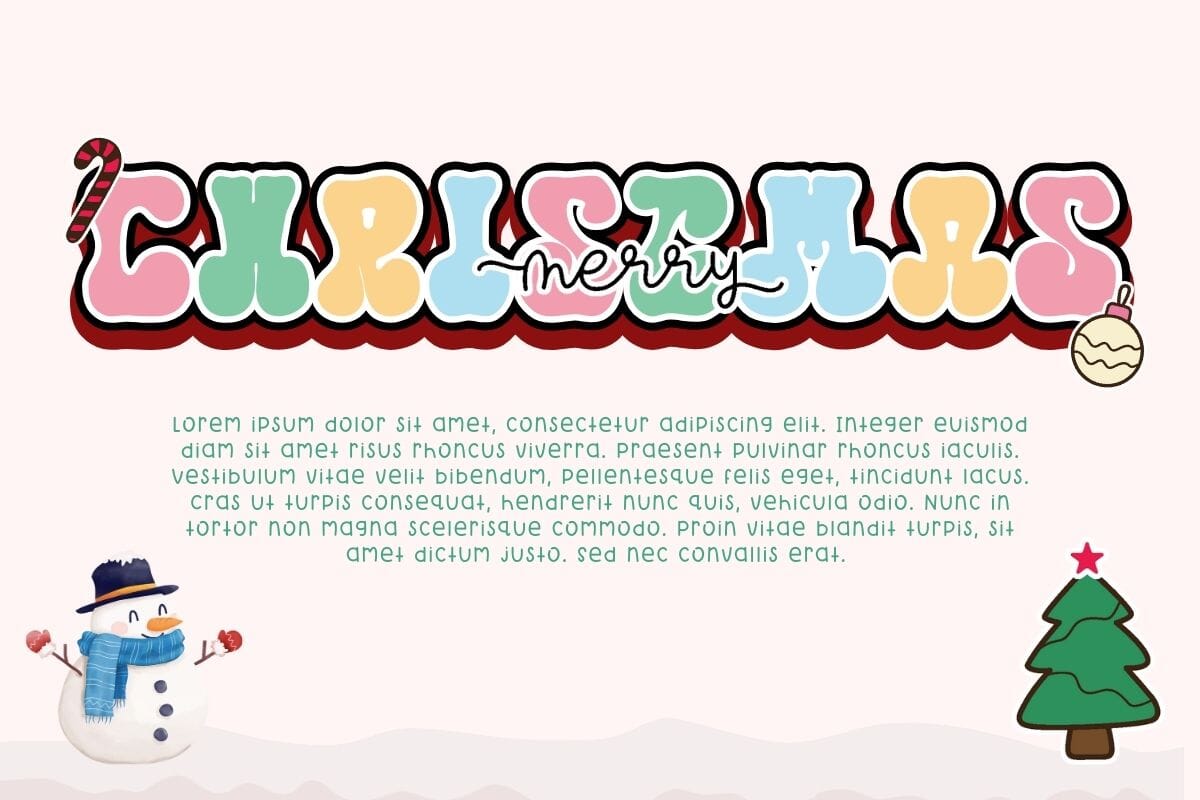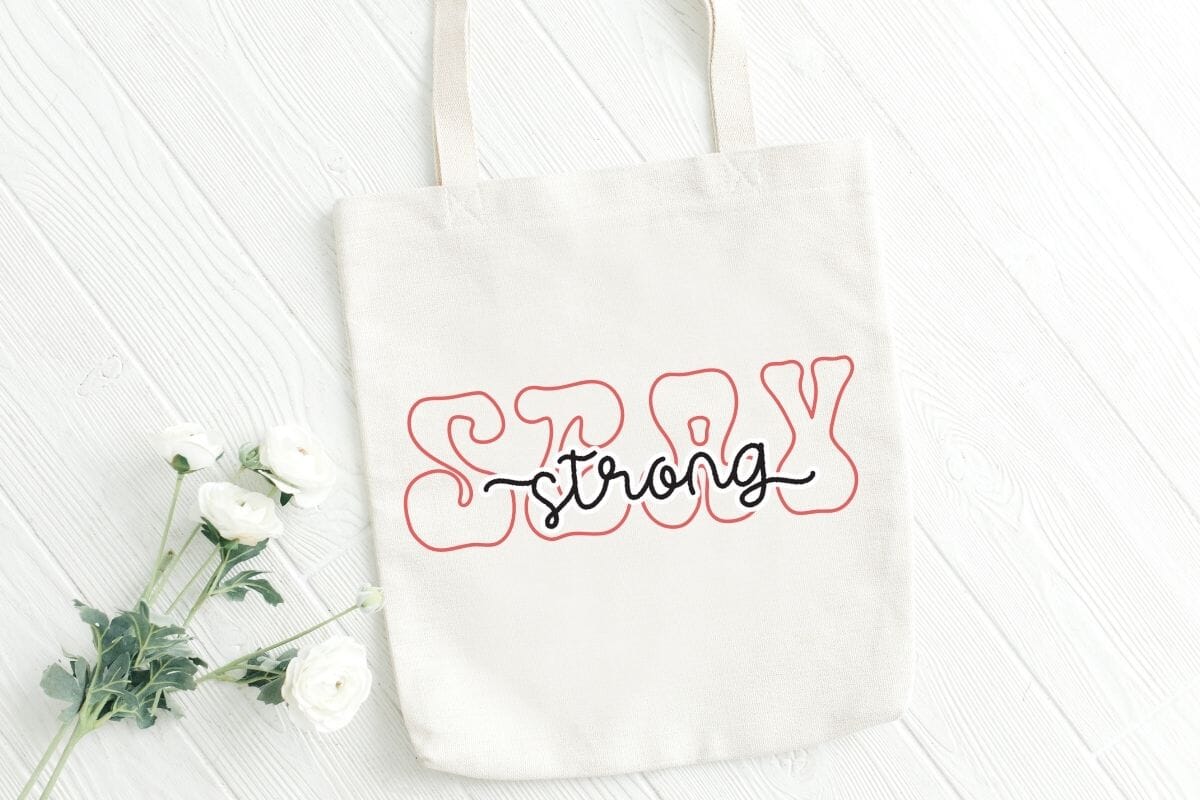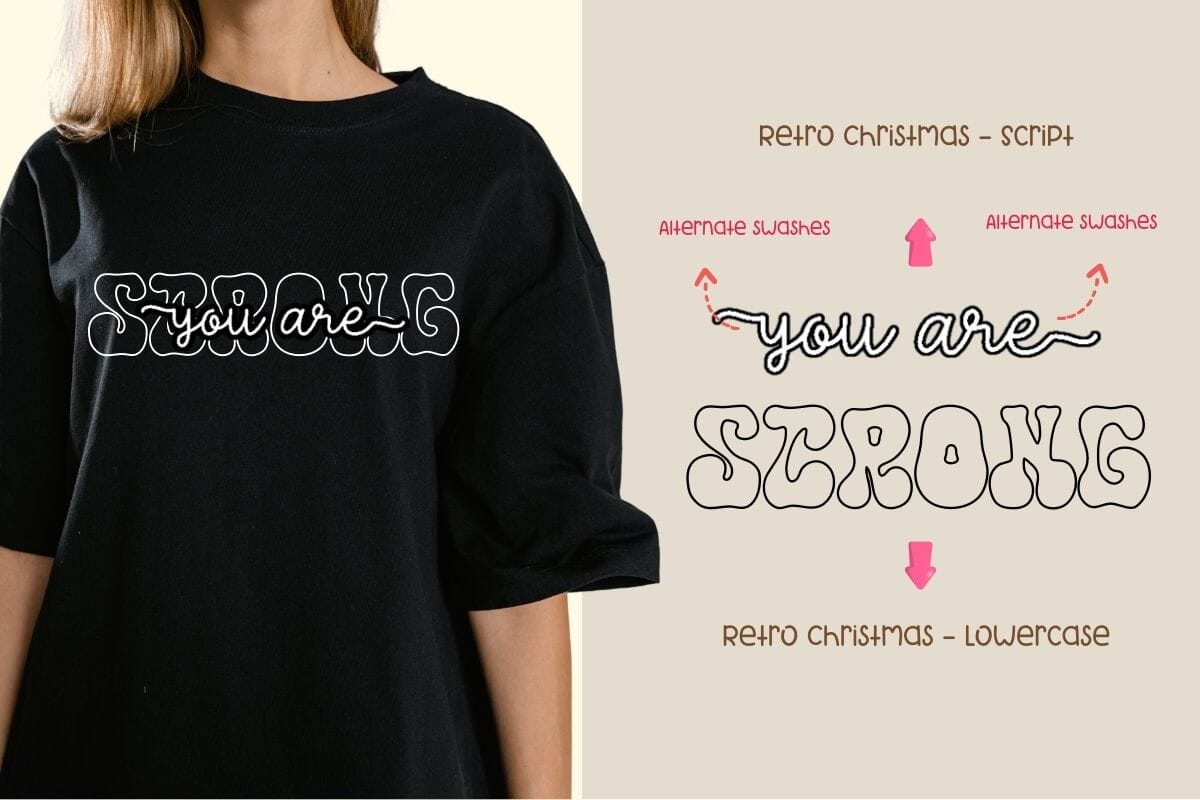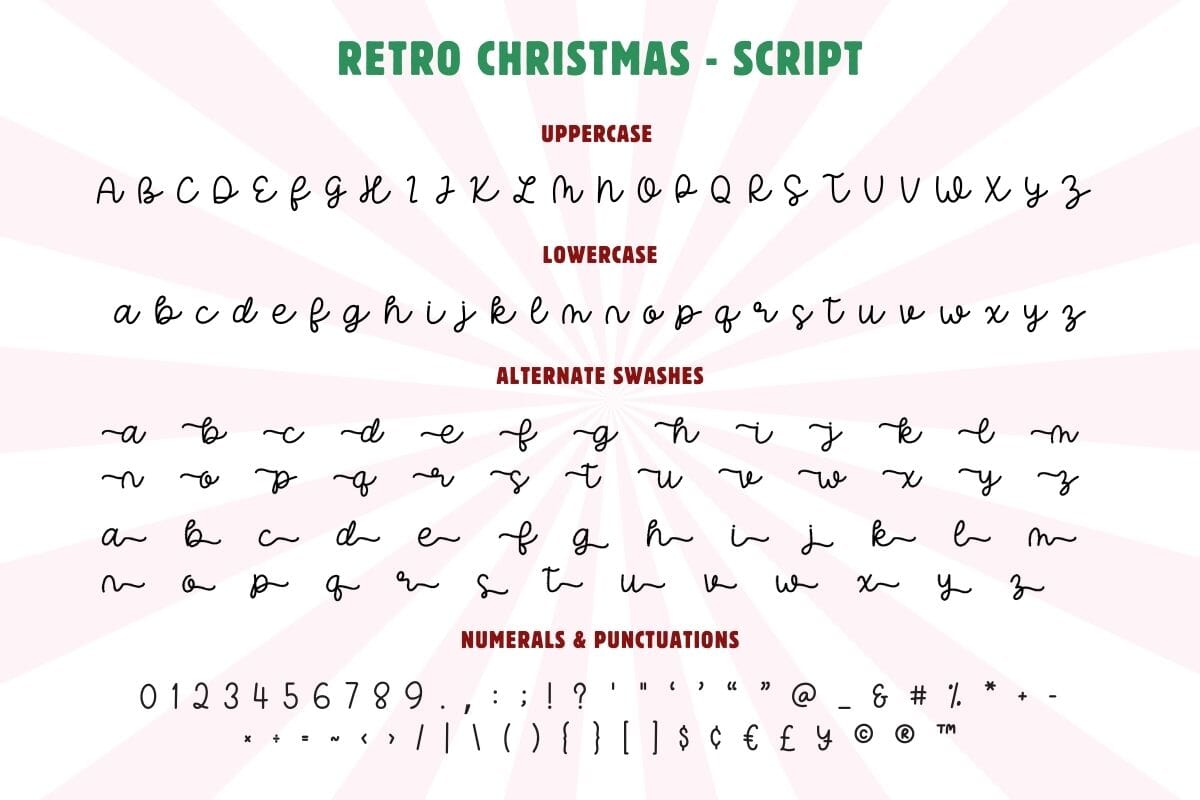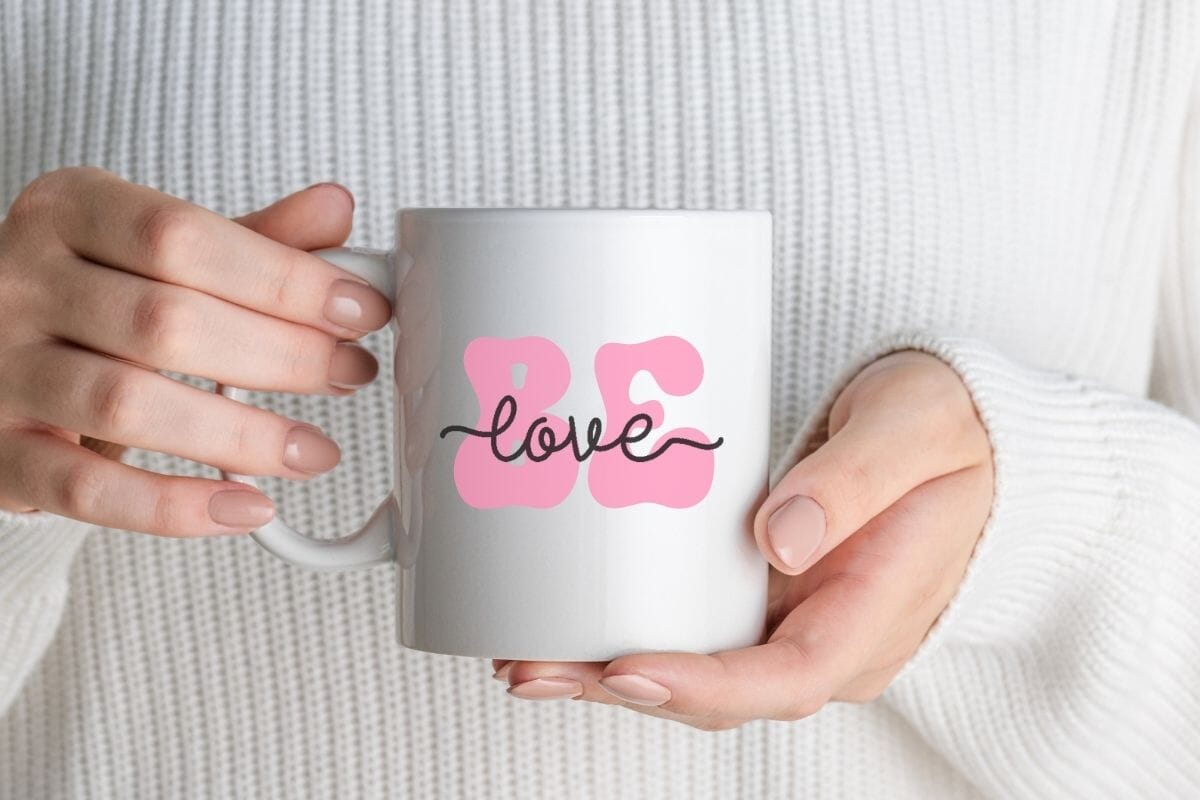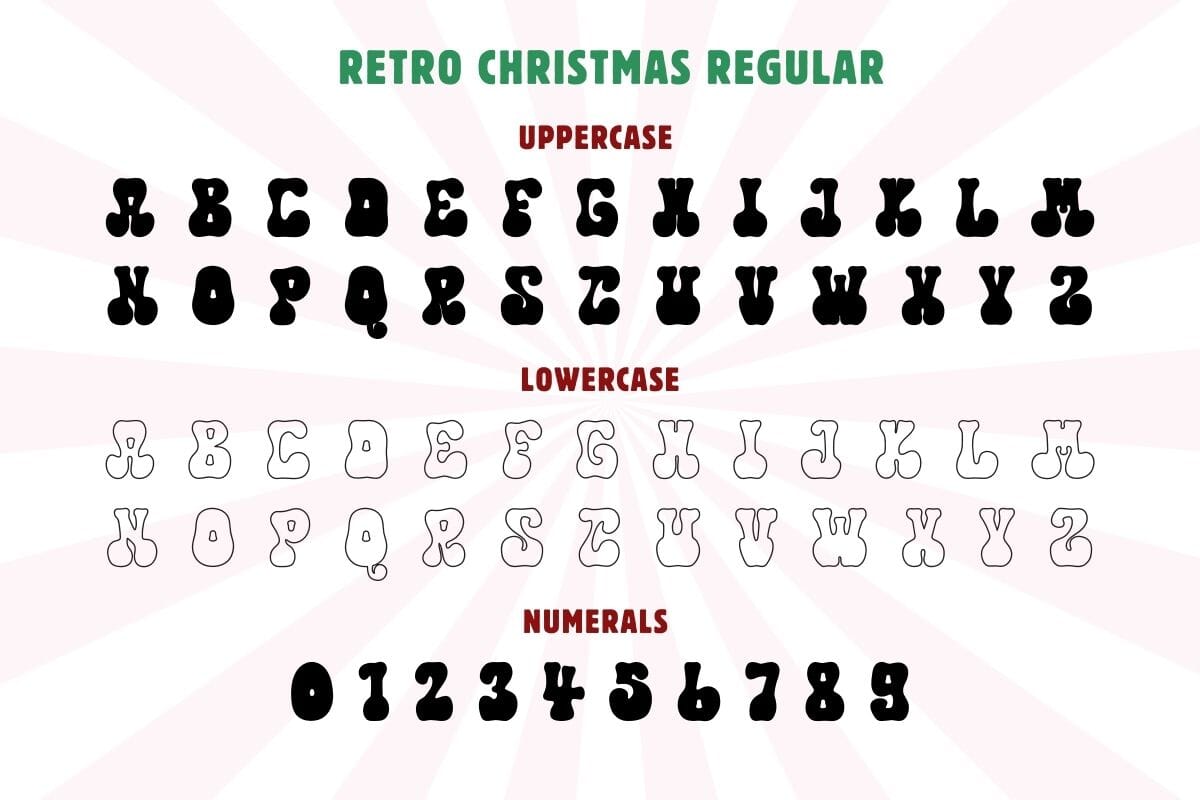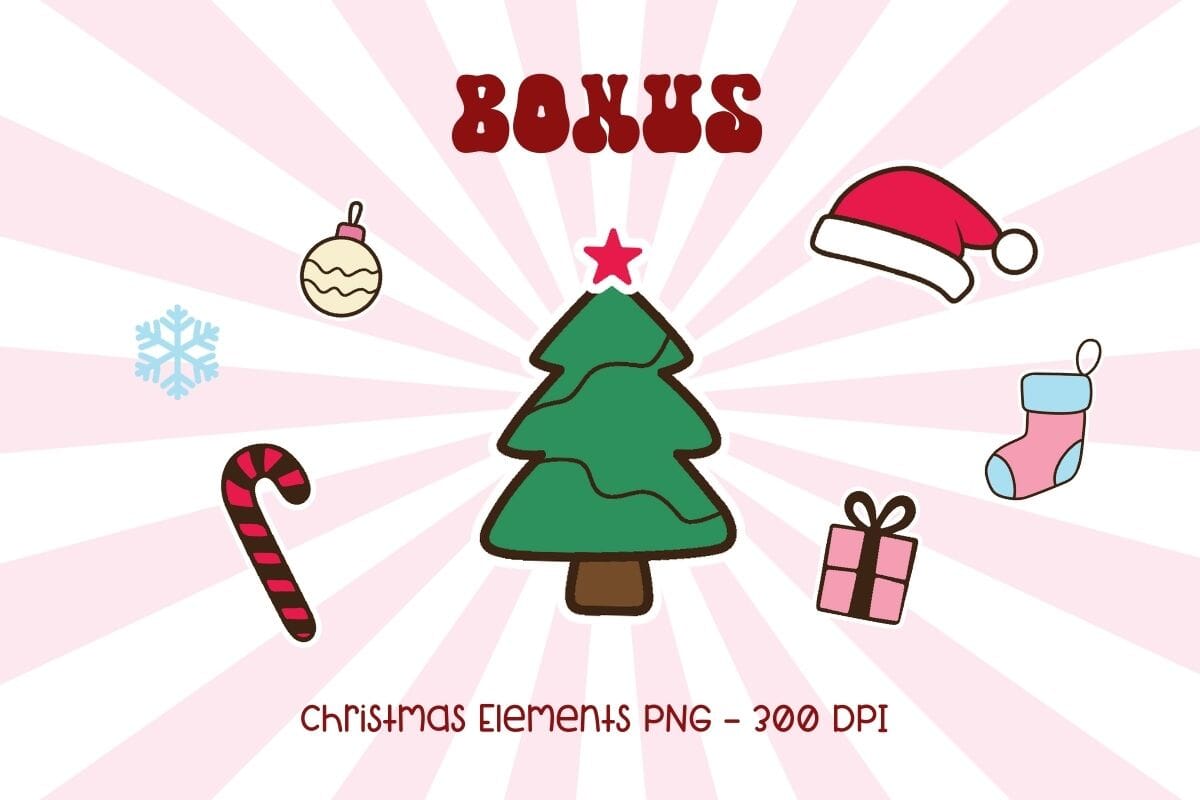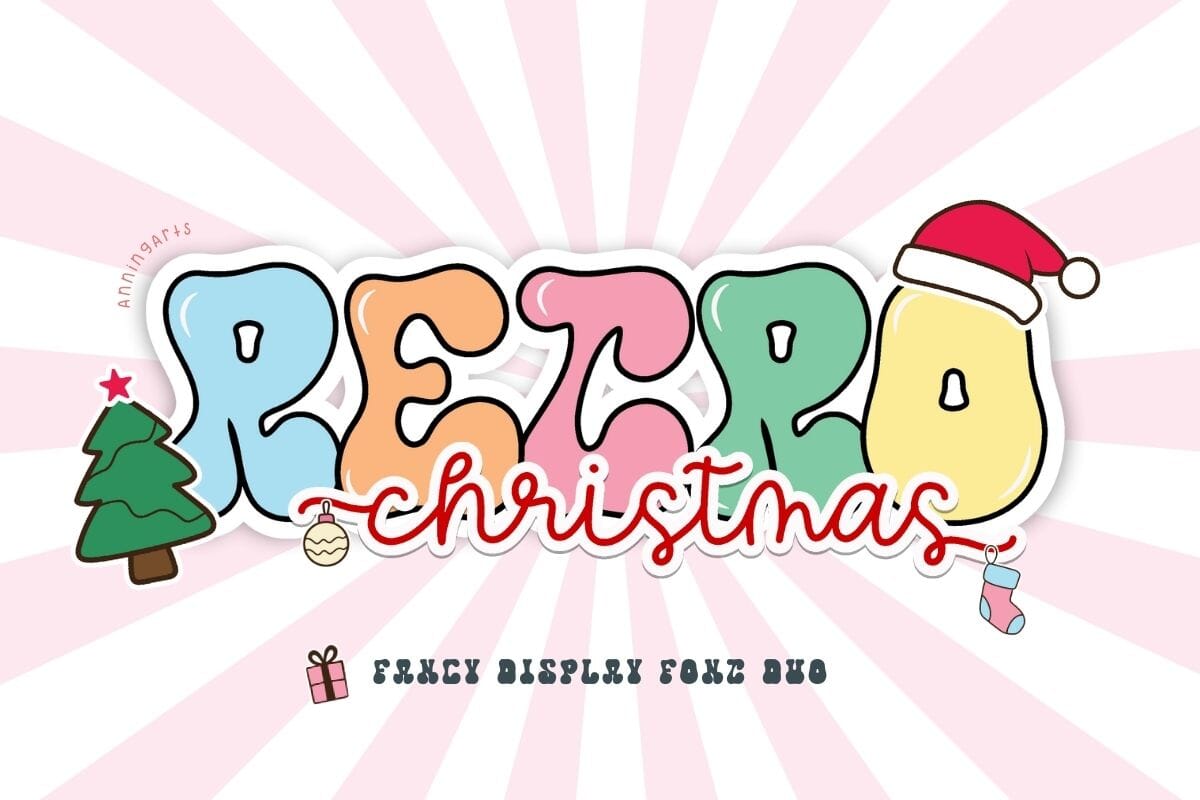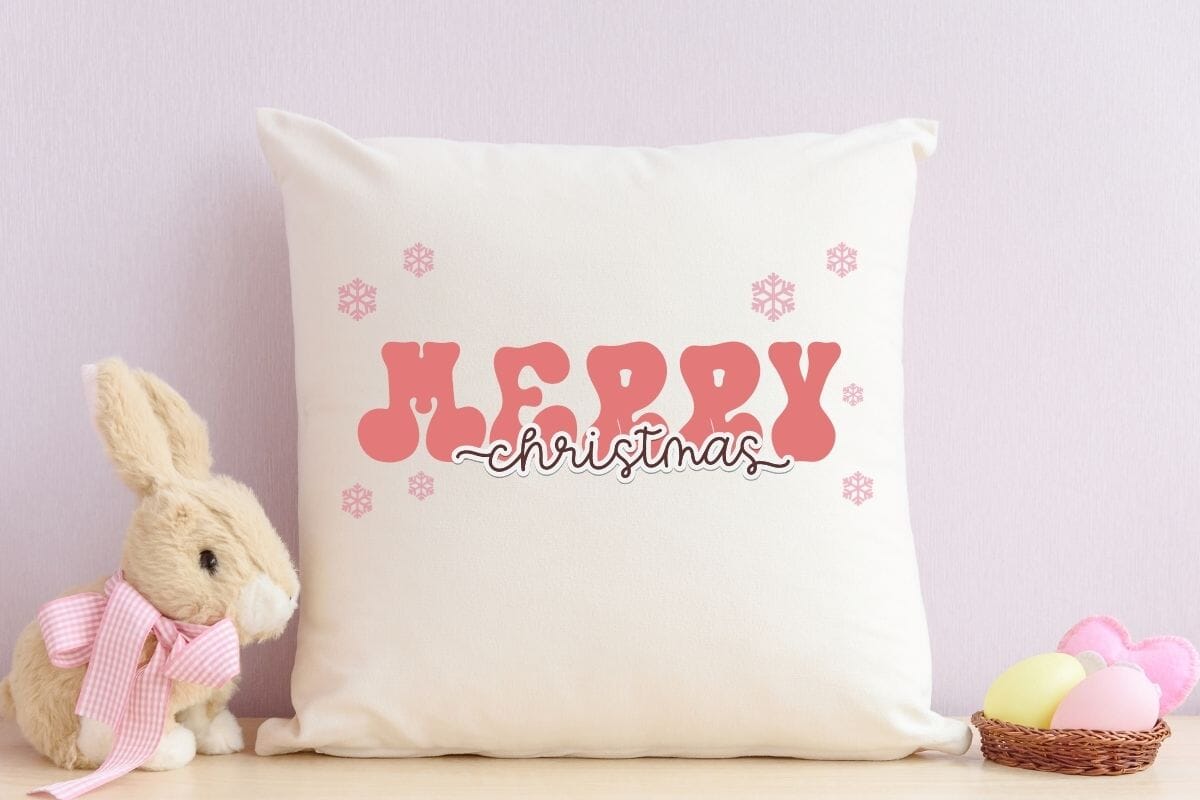
Retro Christmas – Font Duo
Retro Christmas - Font Duo Poster 1
About Retro Christmas – Font Duo
Retro Christmas is a fancy display font duo. This set consists of a script font and a groovy display font, providing you with a wide range of unique and attention-grabbing design choices. You can utilize this pair of fonts to create various designs, including mugs, bags, shirts, pillows, and more. Bonus: 7 Christmas elements PNG – 300 DPi **You will receive Files: OTF , TTF, WOFF, and Bonus PNG Please ensure the program/software you are using accepts OTF, TTF, WOFF font files. ❤️ Thank you! ❤️